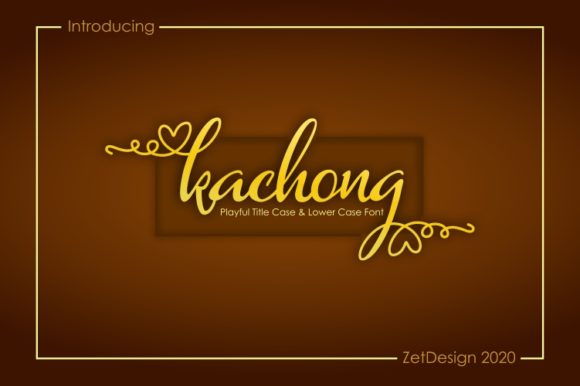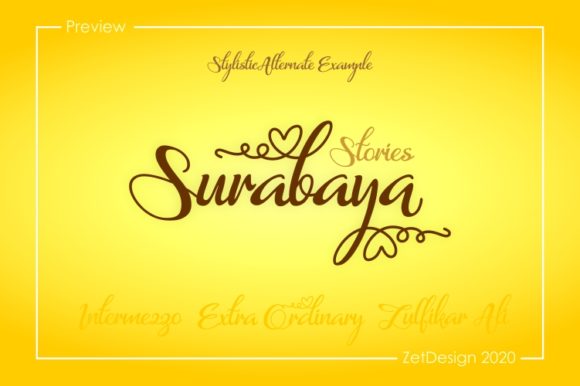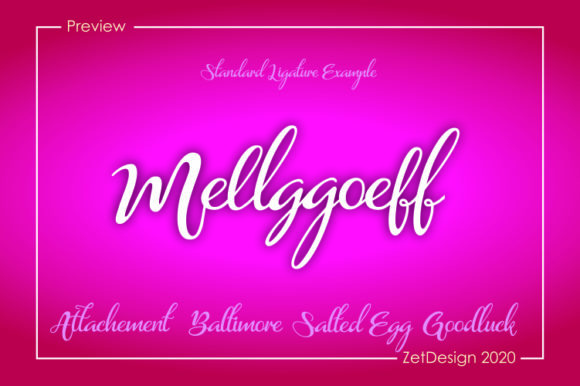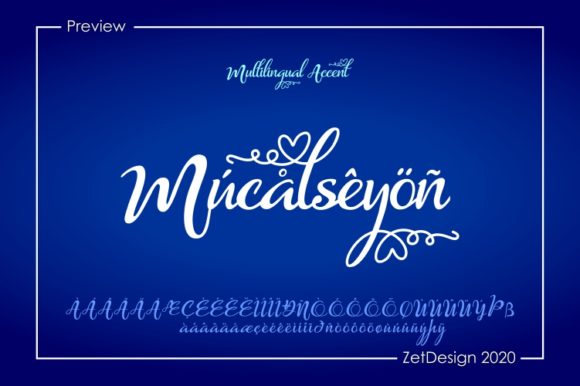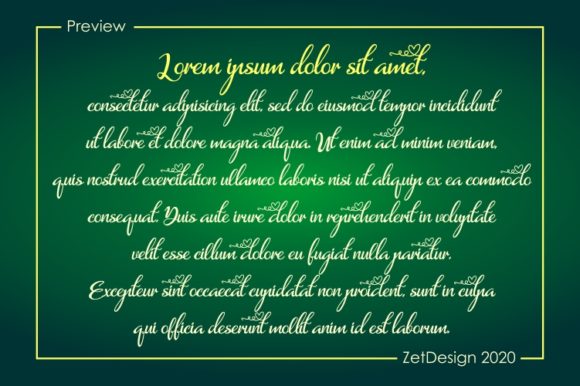
Kachong Font
About Kachong Font
Kachong is a cute and elegant handwritten font with an incredibly friendly feel. It features gorgeous swashes and ligatures that make this script incredibly versatile.